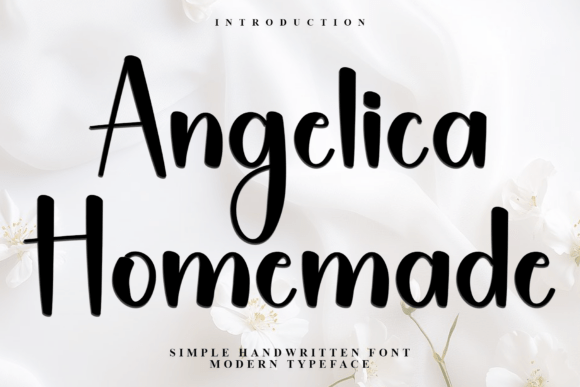
Introducing Angelica Homemade Font: A Unique and Versatile Typeface
In the world of typography, fonts play a crucial role in conveying messages, expressing emotions, and creating visual identities. Among the numerous fonts available, Angelica Homemade stands out as a beautiful and eye-catching typeface that has been designed with a soft, unique touch. Its distinctive strokes give it a special character, making it meaningful and versatile for future use. In this article, we will explore the features, benefits, and applications of Angelica Homemade Font, and why it’s an excellent choice for designers, artists, and creative professionals.
What is Angelica Homemade Font?
Angelica Homemade Font is a carefully crafted typeface that boasts a unique and captivating aesthetic. Its soft, rounded edges and distinctive strokes set it apart from other fonts, making it perfect for design projects, crafts, and other creative works. The font’s versatility is evident in its various characters, which can be used to create a wide range of visual content, from elegant headings to playful text.
Key Features of Angelica Homemade Font
- Unique and Eye-Catching Design: Angelica Homemade Font features a one-of-a-kind design that is sure to grab attention.
- Soft and Rounded Edges: The font’s soft edges give it a friendly and approachable feel.
- Distinctive Strokes: The font’s strokes are carefully crafted to create a special character that sets it apart.
- Versatile and Meaningful: Angelica Homemade Font is designed to be versatile and meaningful, making it perfect for a wide range of applications.
Benefits of Using Angelica Homemade Font
Using Angelica Homemade Font in your design projects offers numerous benefits. Here are a few:
- Enhance Your Designs: The font’s unique and eye-catching design is sure to elevate your designs and make them more appealing to your audience.
- Stand Out from the Crowd: With Angelica Homemade Font, you can create visual content that stands out from the crowd and sets you apart from your competitors.
- Perfect for Various Creative Fields: The font’s versatility makes it perfect for use in various creative fields, including graphic design, art, crafting, and more.
Applications of Angelica Homemade Font
Angelica Homemade Font is an excellent choice for a wide range of applications, including:
- Graphic Design: Use the font to create stunning visual content, such as brochures, posters, and business cards.
- Art and Crafting: The font’s unique design makes it perfect for use in art and crafting projects, such as handmade cards and scrapbooking.
- Digital Media: Use Angelica Homemade Font to create engaging digital content, such as social media graphics and blog posts.
- Branding and Identity: The font’s distinctive strokes make it an excellent choice for creating a unique brand identity.
Why Choose Angelica Homemade Font?
With so many fonts available, why choose Angelica Homemade Font? Here are a few reasons:
- Unique Design: The font’s unique design sets it apart from other fonts, making it perfect for designers who want to create something special.
- Versatility: Angelica Homemade Font is versatile and can be used in a wide range of applications.
In conclusion, Angelica Homemade Font is a beautiful and eye-catching typeface that is perfect for designers, artists, and creative professionals. Its unique design, versatility, and compatibility with various applications make it an excellent choice for a wide range of projects. Whether you’re looking to create stunning visual content, craft handmade cards, or develop a unique brand identity, Angelica Homemade Font is sure to enhance your designs and make them appealing to your audience.